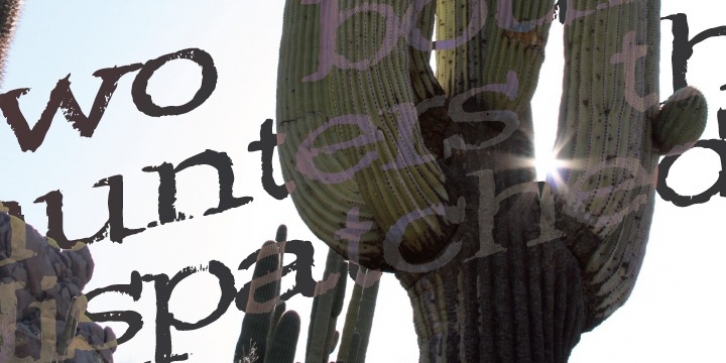
This font was drawn in illustrator and it was recreated using some black paint and a fine-tipped paintbrush.
Wide Noise was blown up emphasizing all of its character roughness and wildness… like something from a Sam Peckinpah movie.
This font is ideal to plaster it across large surfaces or as a display font.